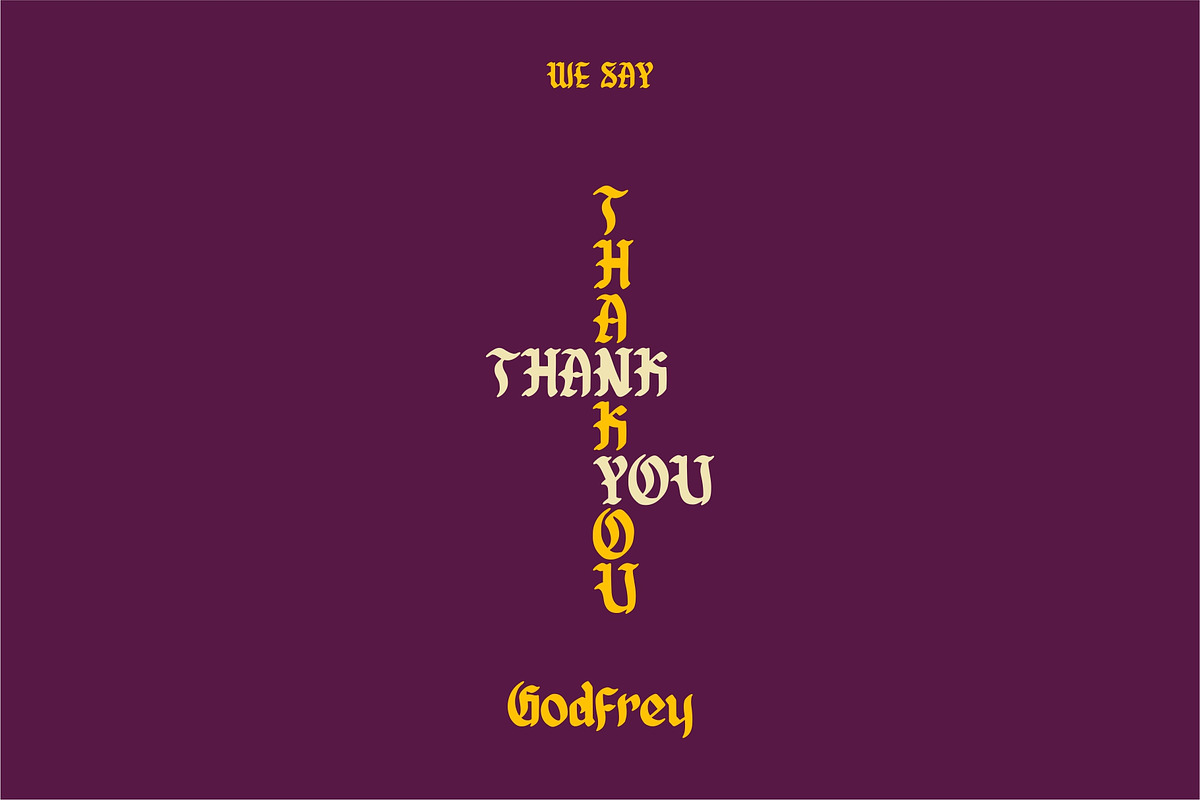
Godfrey Bold Blackletter
Introducing Godfrey Blackletter fonts
Godfrey make from bold style blackletter. That's very versatile for design poster, magazine. headline, t-shirt design, branding, label, packaging, logo type, banner, and many more the best your project. With bold and gothic and old english style, Godfrey can gift you the best work ever.